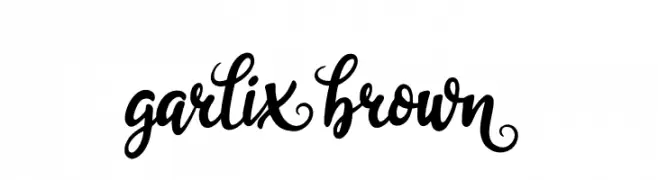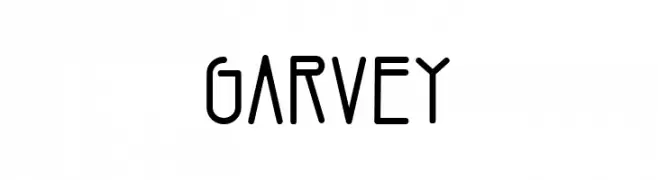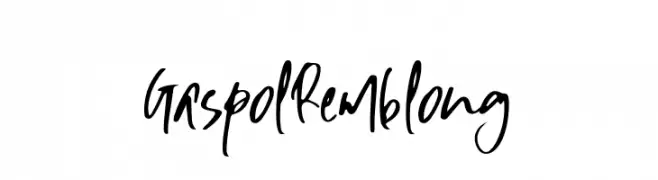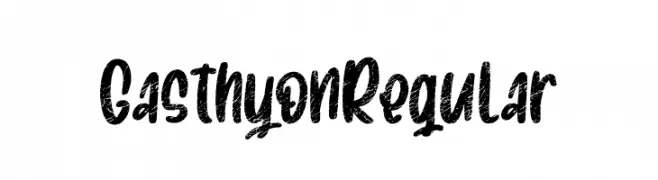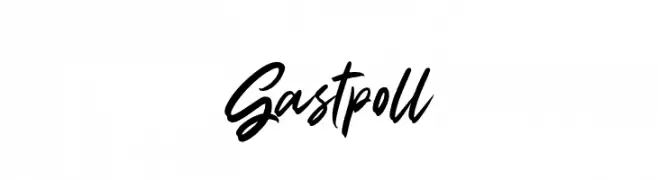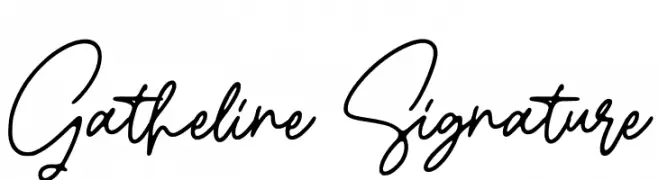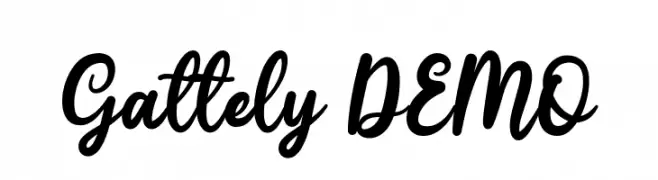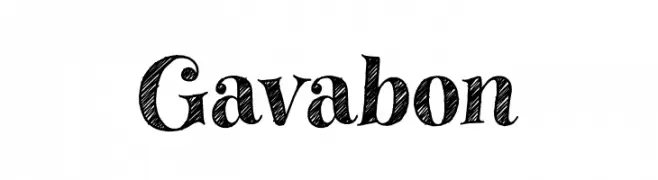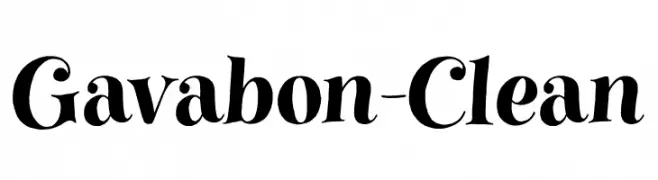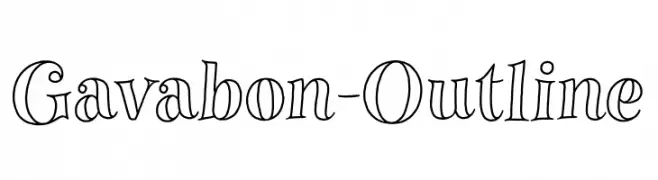
A whimsical script font with elegant curves and decorative flourishes.
A modern, geometric font with clean lines and a slightly condensed style.
A playful, bold font with a bubbly, rounded style and a whimsical texture.
A dynamic, expressive handwritten font with fluid strokes.
A bold, textured font with a vintage, hand-painted look.
A dynamic and expressive script font with fluid, cursive letterforms.
A bold, playful script font with interconnected letters and a handwritten style.
An elegant, cursive handwritten font with smooth, flowing lines.
A bold, hand-drawn style font with a textured, sketch-like finish.
A bold and expressive serif font with dramatic curves and modern flair.
An outline font with a playful, artistic style and decorative appeal.
A bold, modern sans-serif font with excellent readability and versatility.
A modern, geometric sans-serif font with a clean and approachable design.
A modern, thin font with clean lines and elegant proportions.
A decorative serif font with elegant curves and high contrast, perfect for striking displays.
A bold, playful font with rounded edges and a slightly condensed style.
A bold, playful script font with a handwritten style.
A bold, playful font with rounded edges and a whimsical style.
A playful, bubble-like font with thick outlines and a cartoonish style.
A flowing, cursive script font with elegant curves and a handwritten style.
A graceful and elegant script font with flowing, cursive lines.
A bold serif font with strong serifs and moderate contrast, ideal for authoritative text.
A bold, italic serif font with classic elegance and medium contrast.
An elegant serif font with a classic italic style and smooth, flowing characters.
A classic serif font with medium weight and refined serifs, offering elegance and readability.
Elegant serif font with medium weight and italic style.
A modern serif typeface with elegant, rounded serifs and excellent readability.
A bold, playful script font with a handwritten feel.